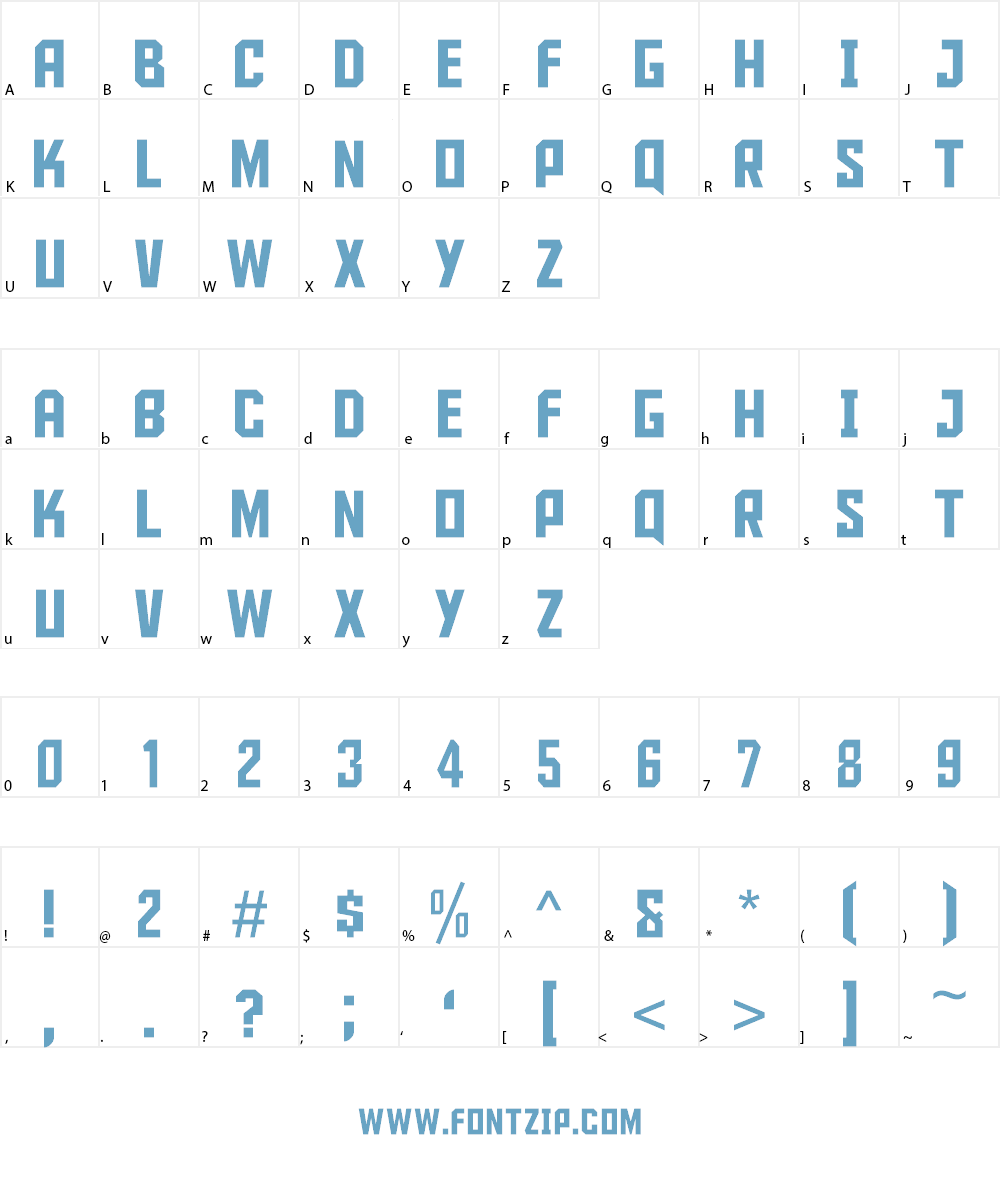
Based on a heavy, blocky Under Armour font. 100% freeware! Modify it, customize it, use it on whatever you want. Commercial use is encouraged! All is ask is don't rename the font and don't sell the font itself.